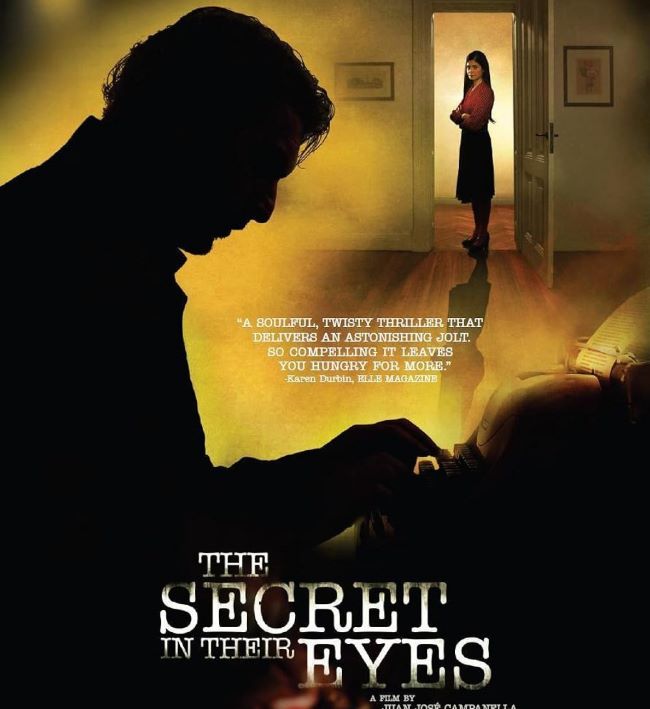
I love how the The Secret in Their Eyes font captures the intensity and emotion of Juan José Campanella’s 2009 thriller. The movie, a masterful blend of crime, love, and unresolved trauma, deserves typography that is equally compelling. The lettering used in the title has a strong, elegant presence—clean yet serious, reflecting the film’s mix of suspense and heartfelt drama.
The Secret in Their Eyes Font
I think what makes the The Secret in Their Eyes font so effective is its balance. It’s not flashy or ornate; it quietly communicates weight, importance, and focus—just like the story itself. Fonts that resemble this style often include Trajan, Garamond, or Didot, which bring that same timeless, cinematic elegance to your designs.
I feel that the The Secret in Their Eyes font works beautifully because it mirrors the film’s themes of memory, justice, and longing. It’s a typeface that doesn’t shout but lingers in your mind, giving the design the same emotional resonance as the movie. Whether for poster design, book covers, or cinematic projects, this style brings a sense of gravity and sophistication.
The The Secret in Their Eyes font reminds me that typography can do more than display words—it can carry emotion, hint at stories, and invite viewers into a world of mystery and human depth.